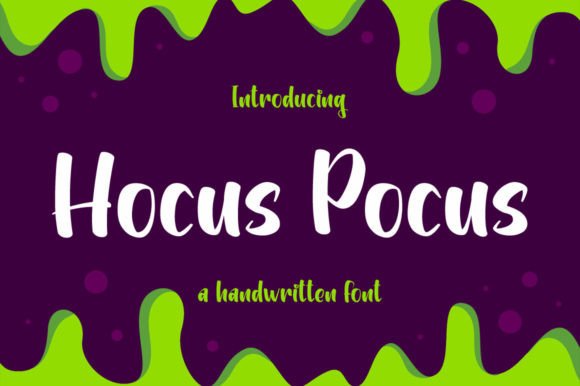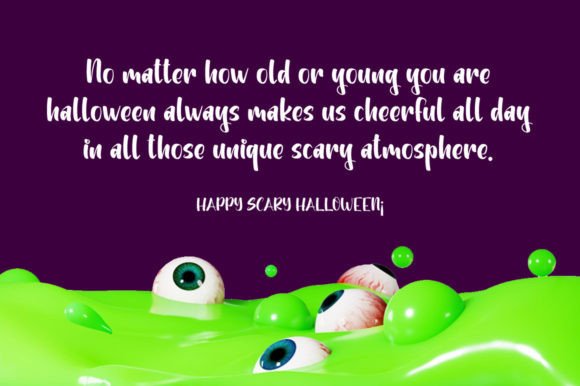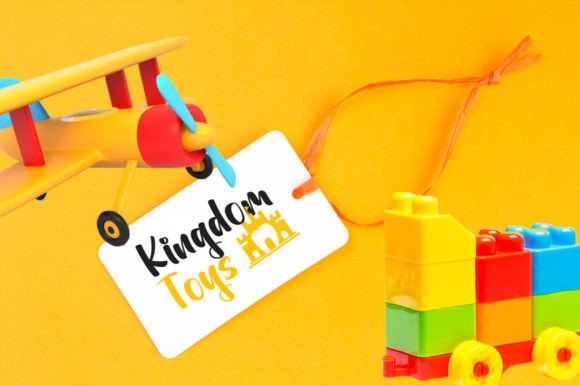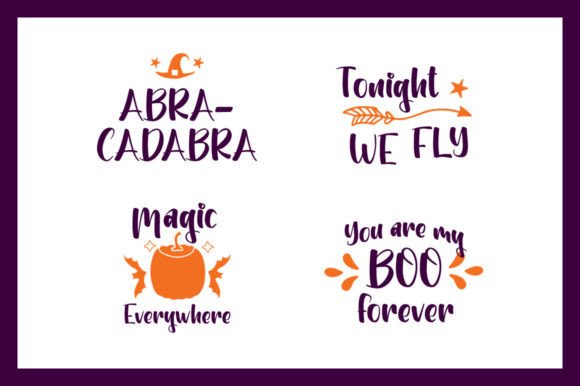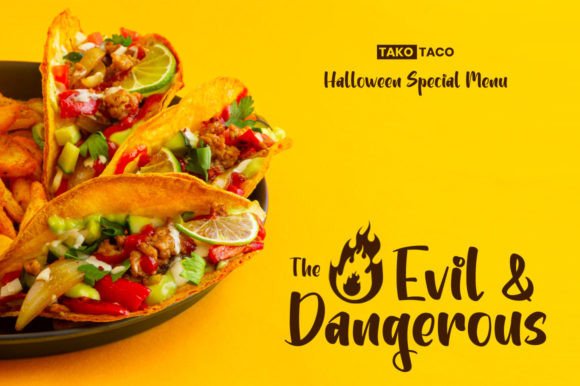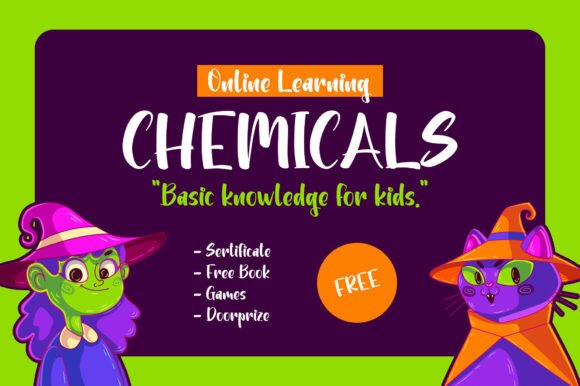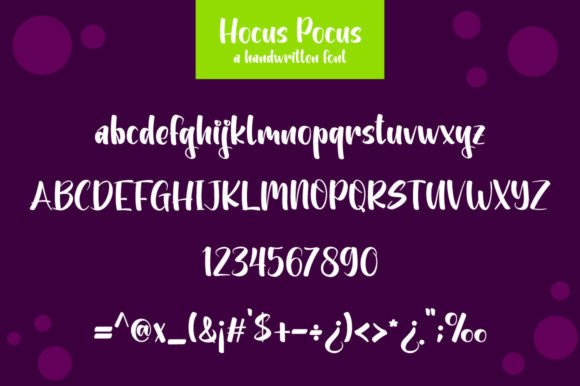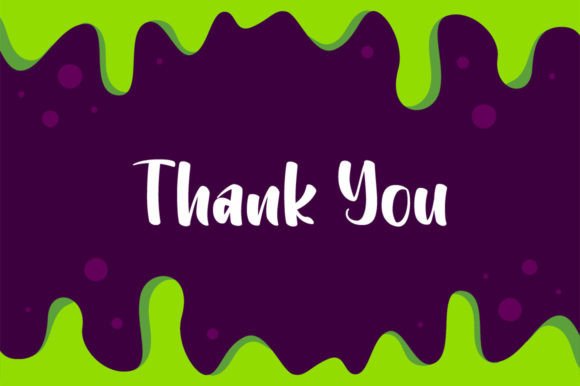
Hocus Pocus Font
About Hocus Pocus Font
**”Hocus Pocus” Handwritten Font: Magical Chalkboard Designs**
The “Hocus Pocus” handwritten font brings a touch of magic to chalkboard designs, making it perfect for creating enchanting chalkboard quotes and teaching materials. Its authentic appearance adds a personal and whimsical feel to your designs. Here are some creative applications and design ideas where “Hocus Pocus” can weave its spell:
1. **Chalkboard Quotes:** “Hocus Pocus” is tailor-made for chalkboard quotes that embrace the magical and whimsical. Design inspirational, mystical, or spellbinding sayings with this font.
2. **Educational Materials:** Create captivating educational materials such as worksheets, activity sheets, and lesson plans using “Hocus Pocus.” Its playful style adds a touch of wonder to teaching content.
3. **Classroom Decor:** Transform your classroom into a magical realm with “Hocus Pocus.” Use it for enchanting bulletin board headers, fairy tale-themed displays, or to create a mystical ambiance.
4. **Invitations and Event Signage:** Craft invitations and event signage with a magical theme. “Hocus Pocus” lends an otherworldly and whimsical touch to event announcements and signs.
5. **Children’s Books:** Illustrate and design children’s books with a whimsical and magical atmosphere. “Hocus Pocus” can bring storybook characters and narratives to life.
6. **Art and Craft Projects:** Incorporate “Hocus Pocus” into art and craft projects, such as homemade greeting cards, scrapbooking, and DIY magical-themed decorations.
7. **Social Media Magic:** Create visually enchanting social media graphics featuring magical quotes, spells, or whimsical illustrations using the “Hocus Pocus” font.
8. **Fantasy Book Covers:** Customize book covers for fantasy and magical-themed books. “Hocus Pocus” adds an element of mystique and wonder to book titles and author names.
9. **Magical Branding:** Develop branding materials for businesses with a magical or fantasy identity. “Hocus Pocus” can become the signature font for such brands, conveying enchantment and charm.
10. **Fairytale Labels:** Design labels for enchanted goods like fairy tale-inspired potions, candles, or magical confections. “Hocus Pocus” enhances the mystical appeal of product packaging.
11. **Wizarding World Events:** Create signage and promotional materials for wizarding-themed events, parties, or conventions. “Hocus Pocus” captures the essence of magical worlds.
12. **Typography Art:** Craft typography-based artwork and prints with a magical twist. Use “Hocus Pocus” to bring spells, incantations, and mystical quotes to life in visual form.
13. **Sorcery School Materials:** Design teaching materials for a fictional sorcery school or magical academy. “Hocus Pocus” adds authenticity to the curriculum.
14. **Mystical Signs and Symbols:** Experiment with “Hocus Pocus” to create mystical symbols, sigils, and magical glyphs for fantasy worlds and imaginary languages.
“Hocus Pocus” is more than just a font; it’s a magical wand for infusing enchantment and whimsy into your design projects. Whether you’re conjuring up spellbinding classroom materials, crafting fairy tale-inspired quotes, or adding a touch of magic to your brand’s identity, “Hocus Pocus” can transport your audience to a world of wonder and imagination. Its playful and mystical letterforms make it a delightful choice for a wide range of creative applications.